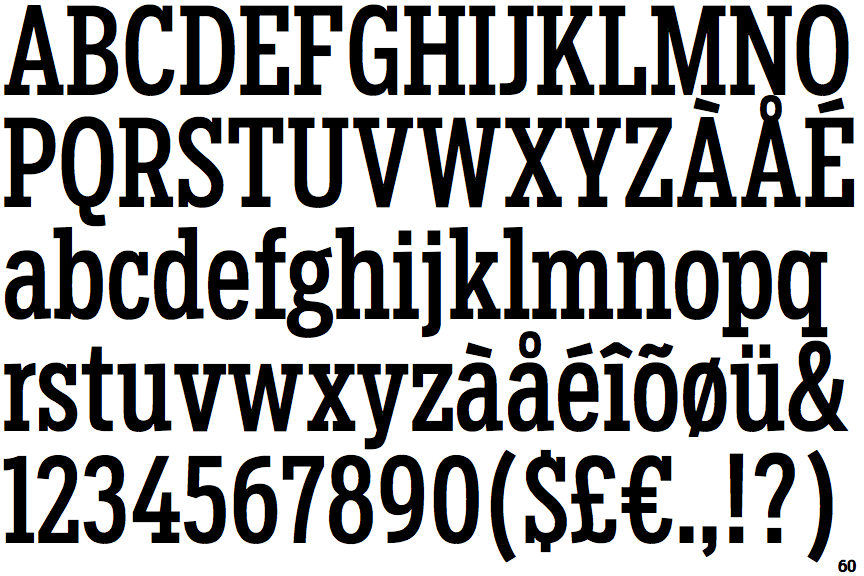
Condensed Serif Font Google
Eclipse Condensed Serif Ligature Font 1.
Rayhead Is One Weight Font, That Has Uppercase And Lowercase Characters, Including Numerals, Punctuation, And Alternatives.
Lato is a sans serif font family created in 2010 by warsaw designer łukasz dziedzic (“lato” means “summer” in polish). This is the serif latin, greek and cyrillic family. Noto fonts for many other languages are available as web.
In creating lato, łukasz tried to balance “transparent” in the body of the text, but. The font joins roboto sans, mono, slab, and condensed in the superfamily as a “minimal serif,” with google going as far as saying it features “just a whisper of a serif.” Libre franklin is available in nine weights with matching italics.